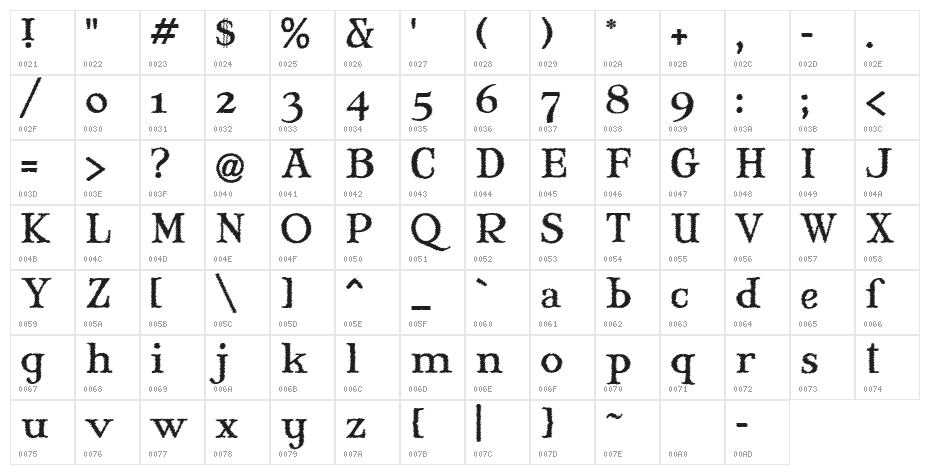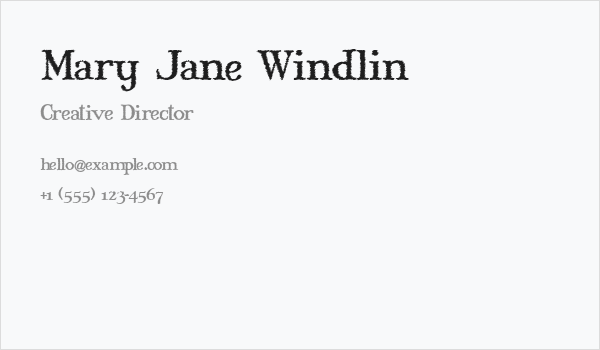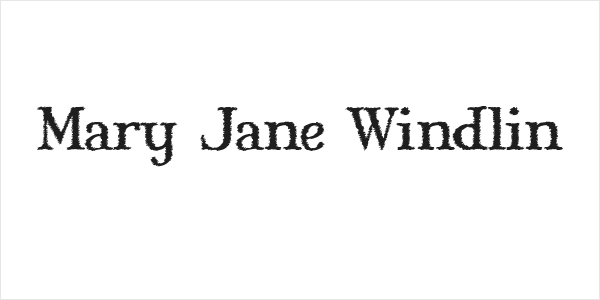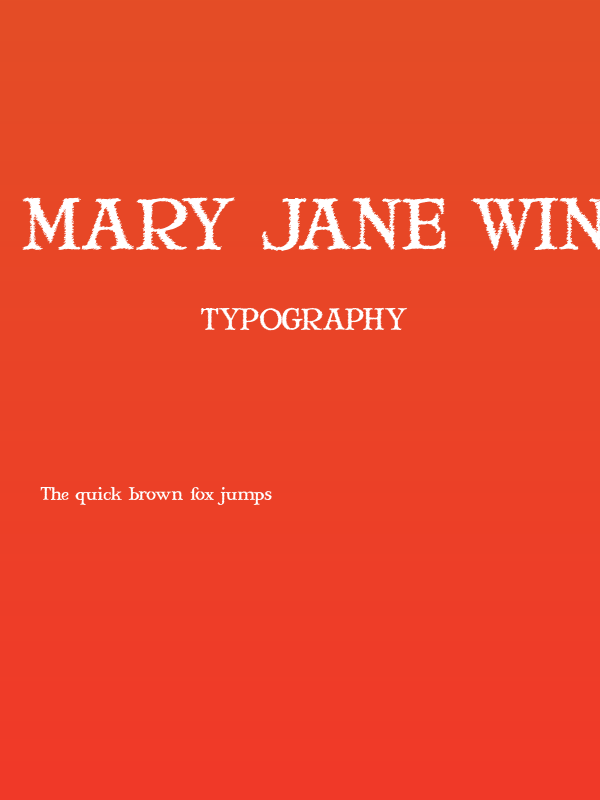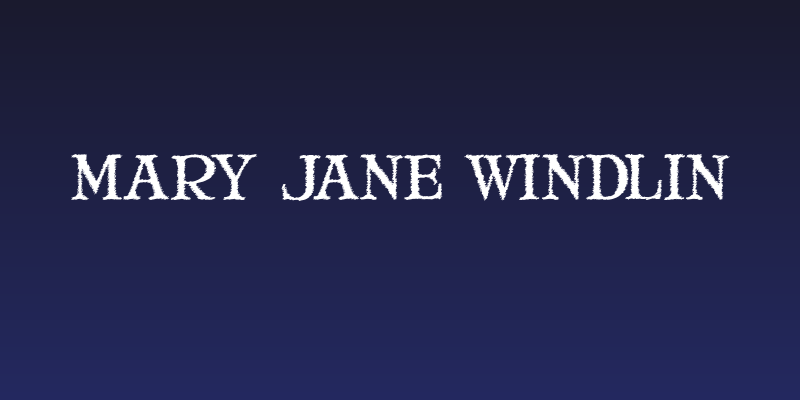
Mary Jane Windlin Font
Mary Jane Windlin Description
This font features a classic serif style with a textured, slightly distressed appearance. The characters have a traditional structure with elegant serifs, giving them a timeless and sophisticated look. The uppercase letters are bold and commanding, while the lowercase letters maintain a consistent style with slightly rounded edges. The numerals are clear and well-proportioned, matching the overall aesthetic of the alphabet. Special characters are included, maintaining the same textured style, which adds a unique touch to the font. The overall design is reminiscent of vintage printing techniques, making it suitable for projects that require a touch of nostalgia or elegance.